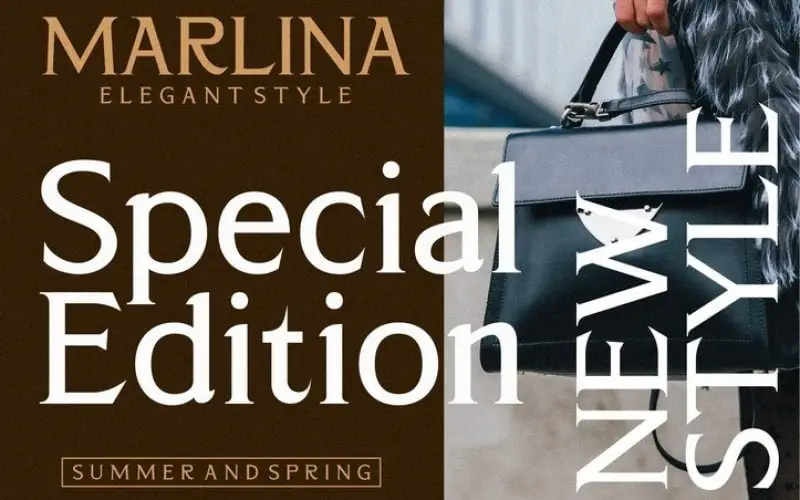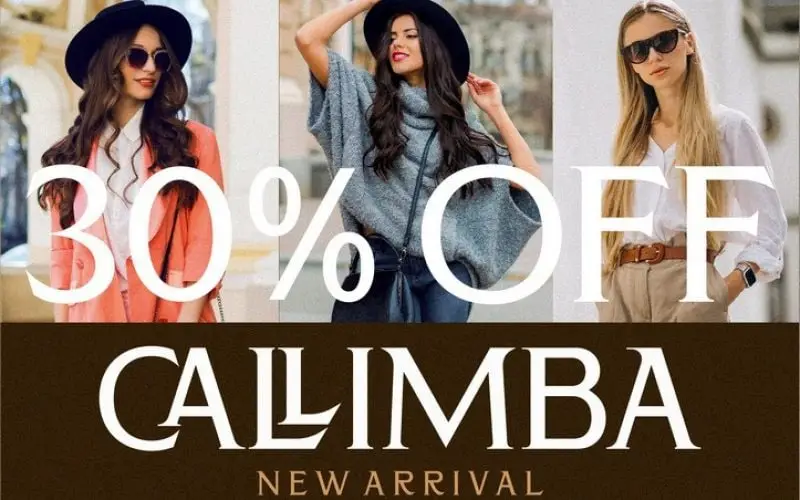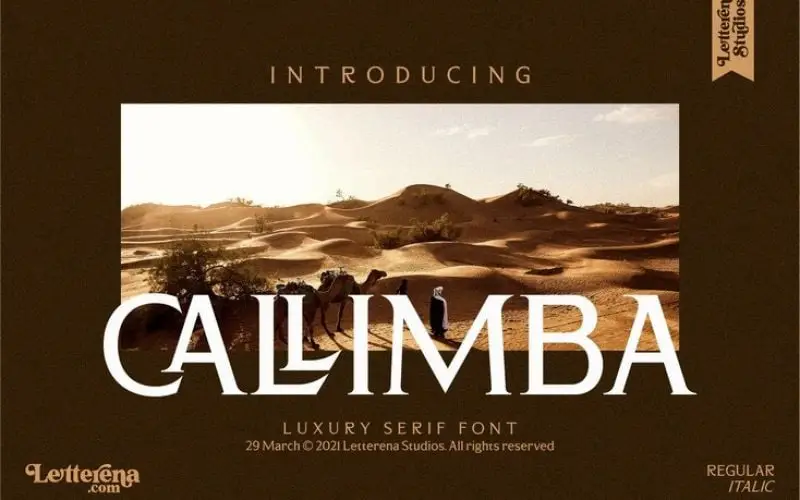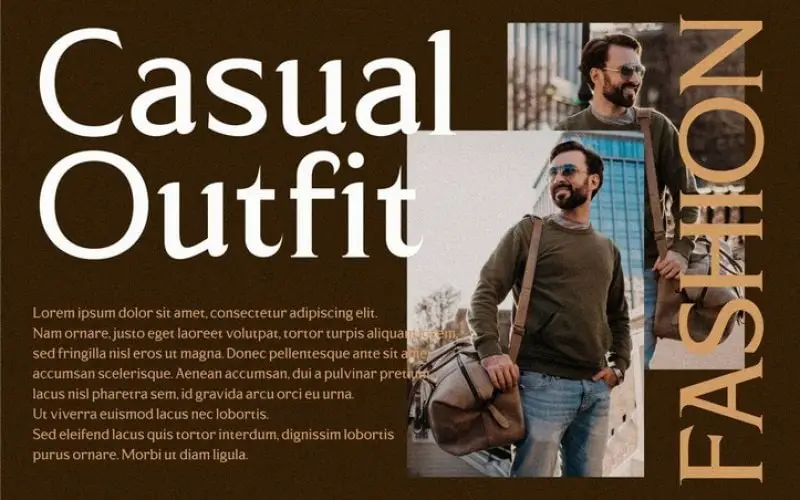
Granz Creative-Callimba Serif Font
Introducing the Granz Creative-Callimba Serif Font, a beautifully crafted typeface that combines elegance with modernity. This font is designed to elevate your branding, logos, and print materials, making it an excellent choice for creative projects.
• Stylish serif design with a contemporary twist
• Multiple weights for versatility in design
• Clear legibility for both print and digital use
This font is perfect for creating eye-catching logos, elegant invitations, and stylish websites. Use it to bring a touch of sophistication to your design projects.